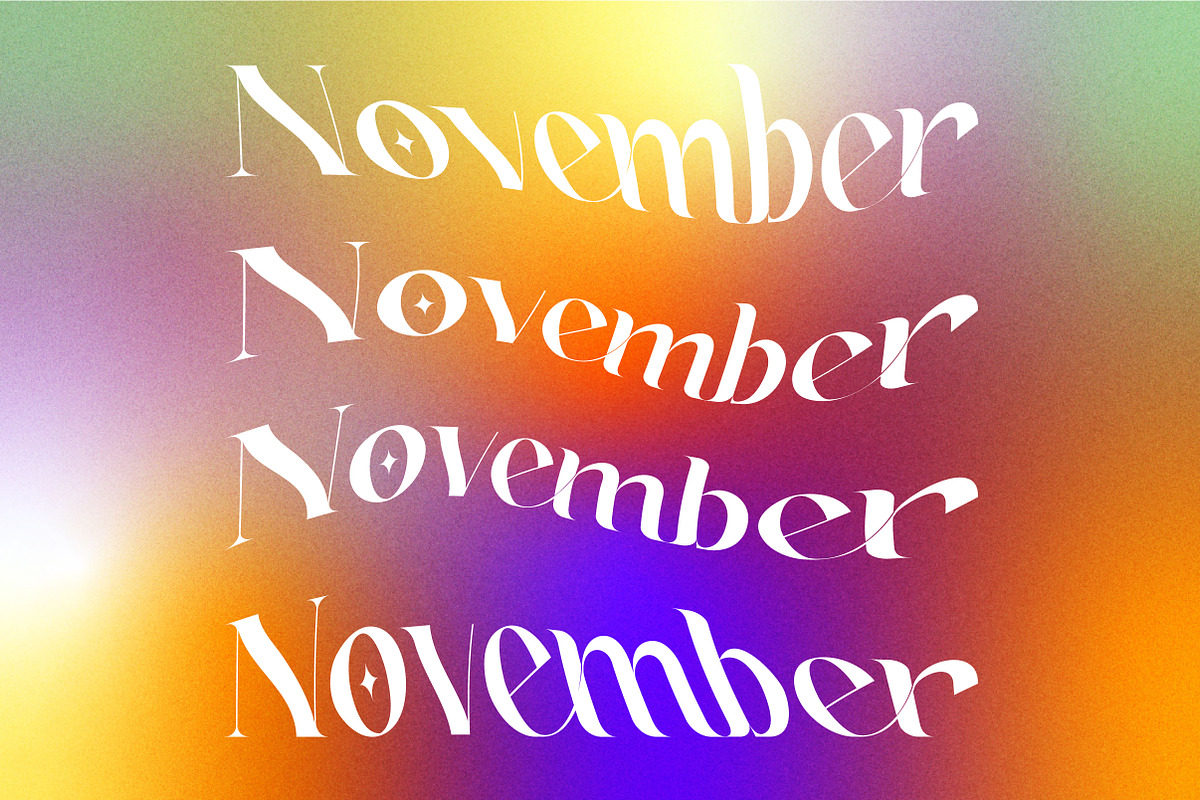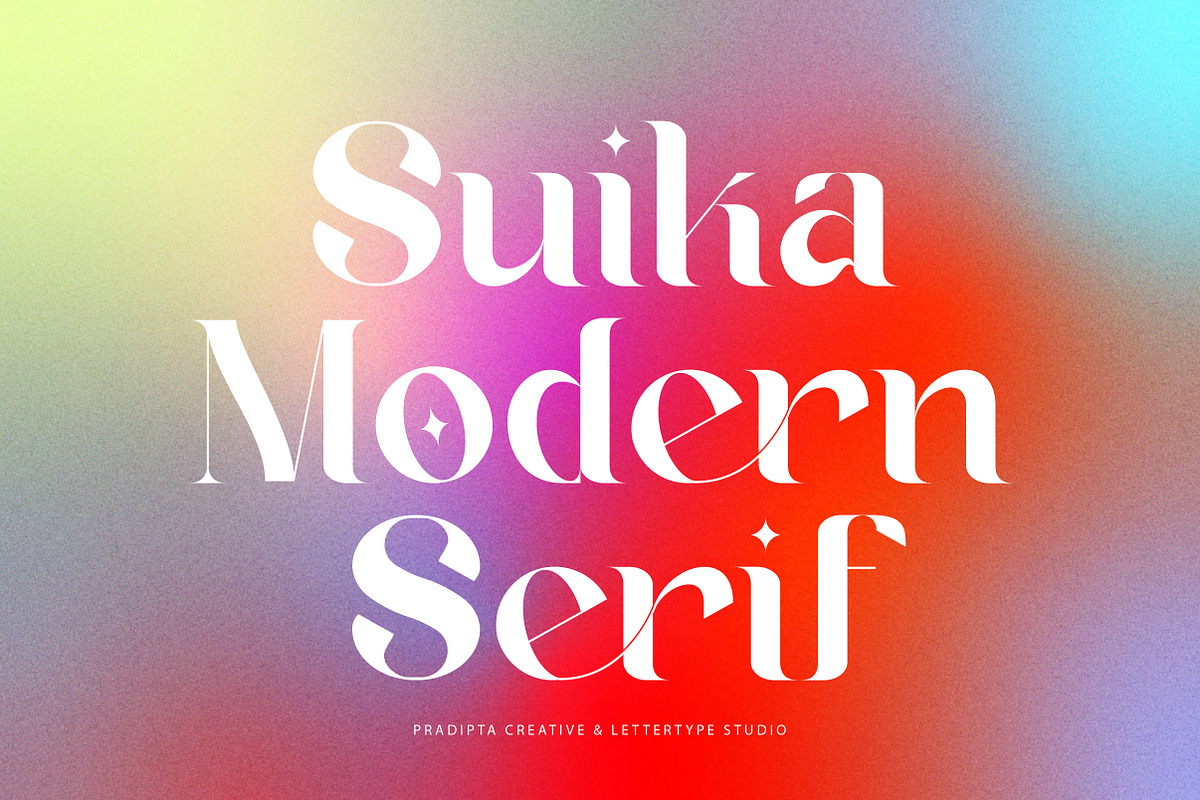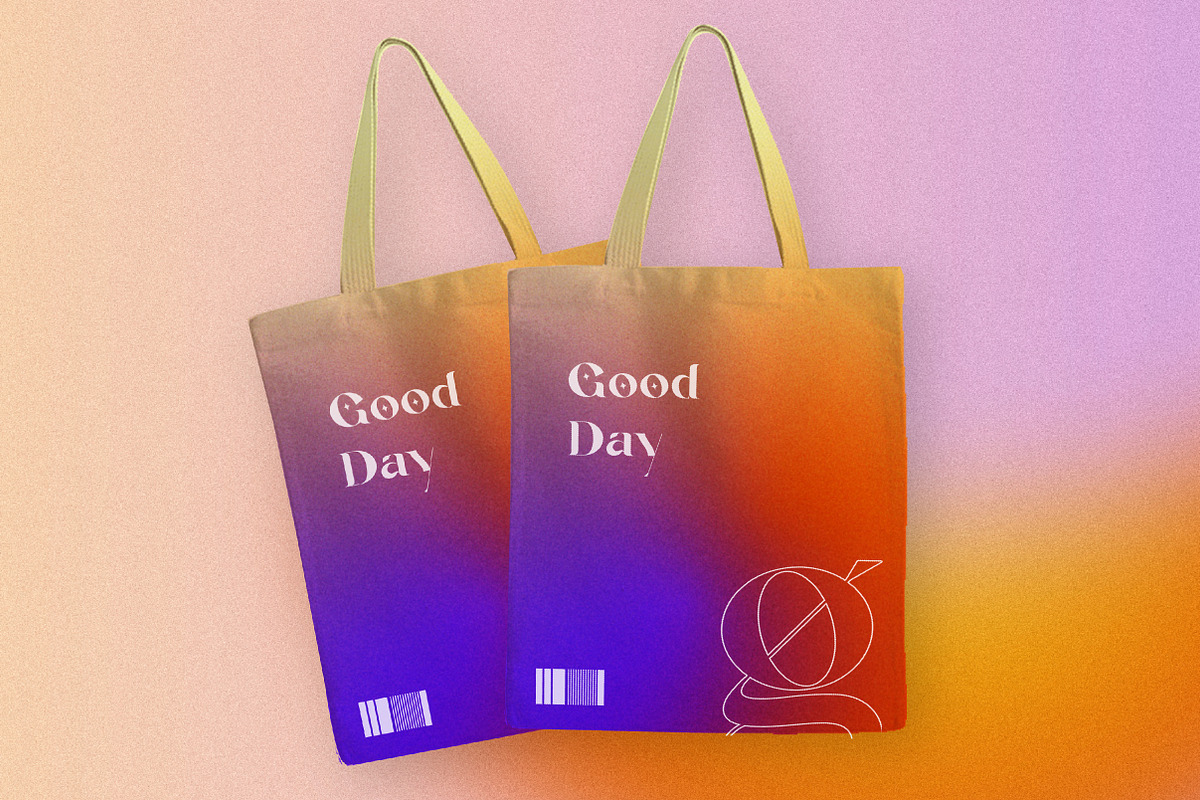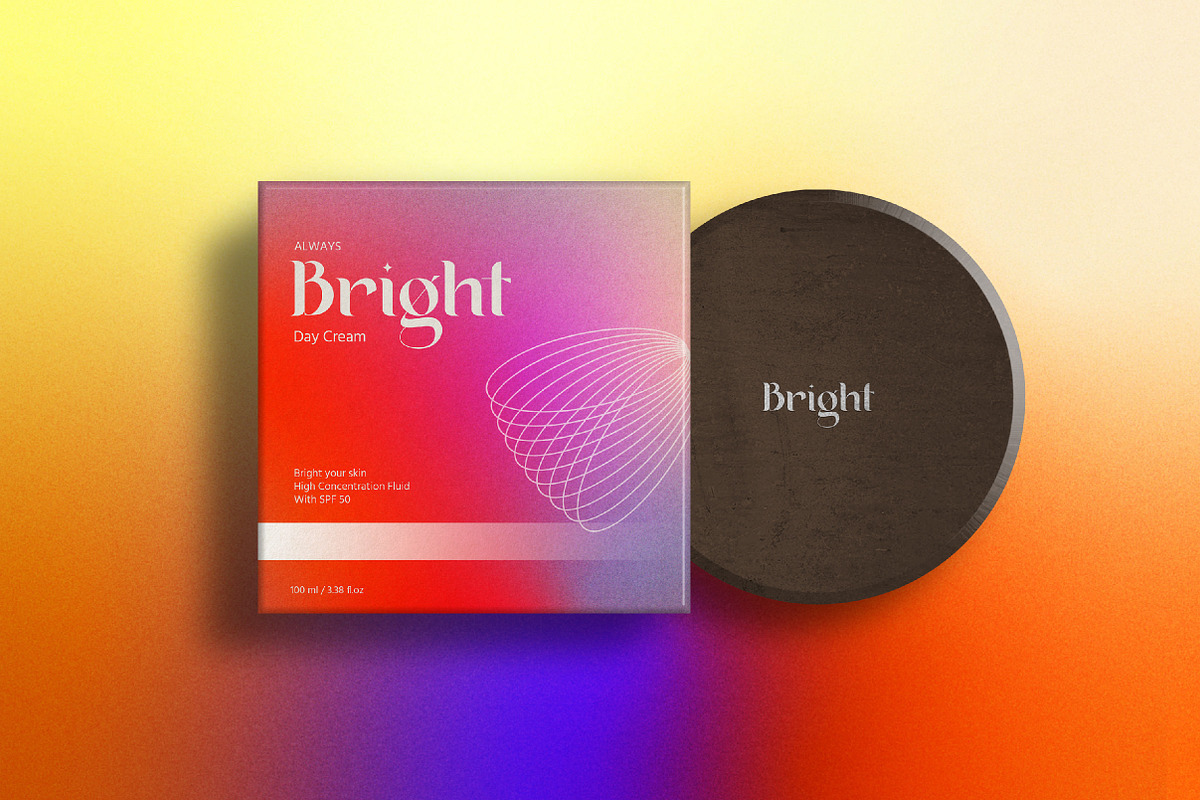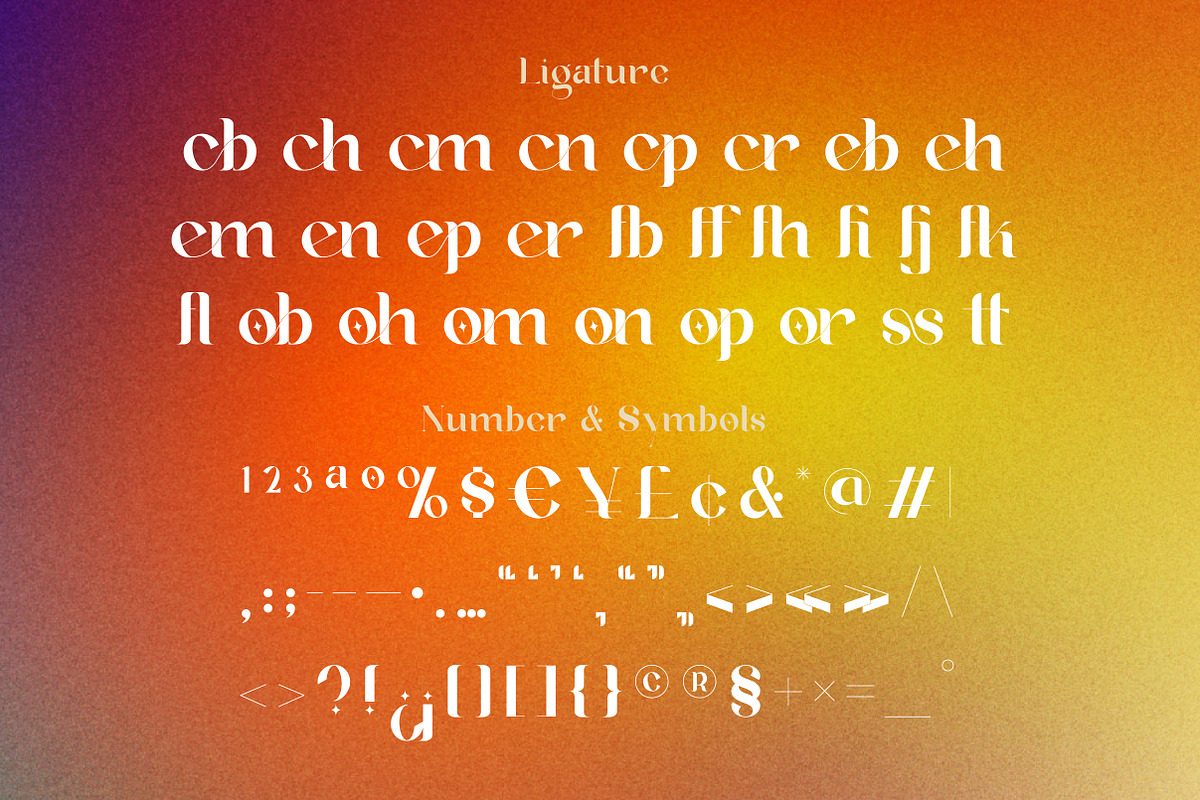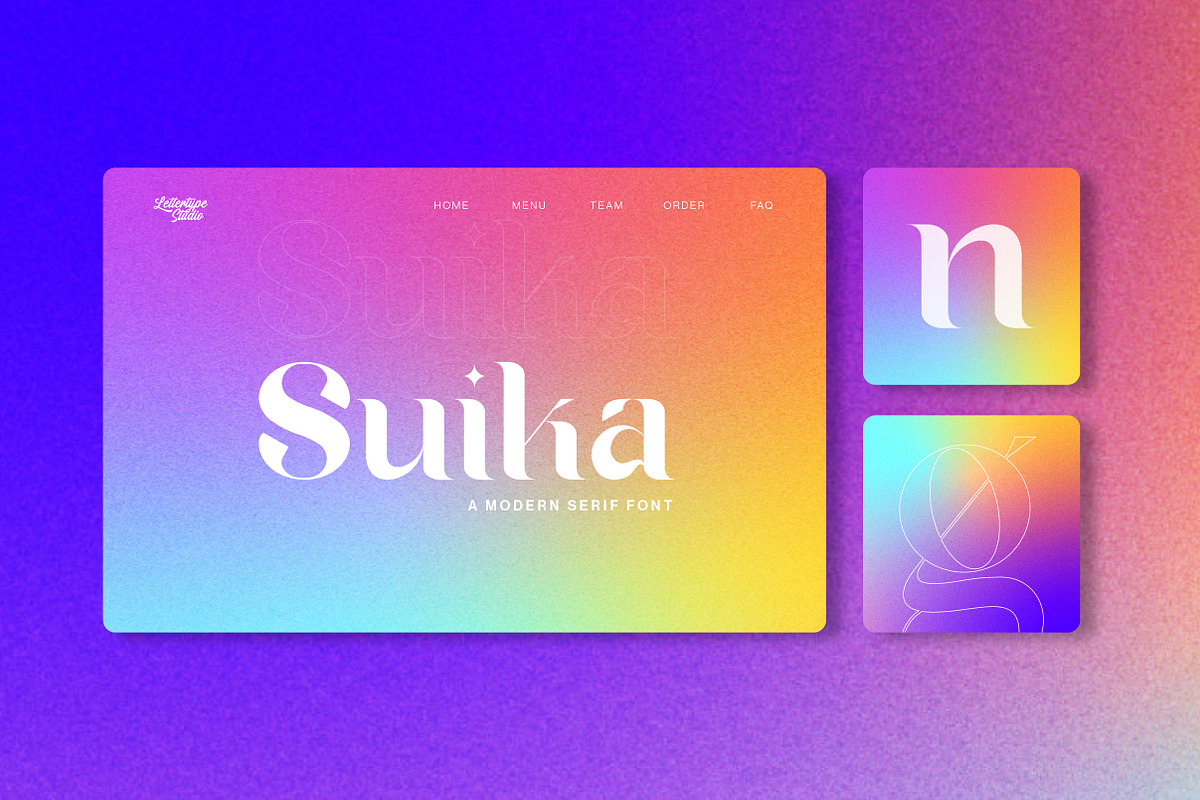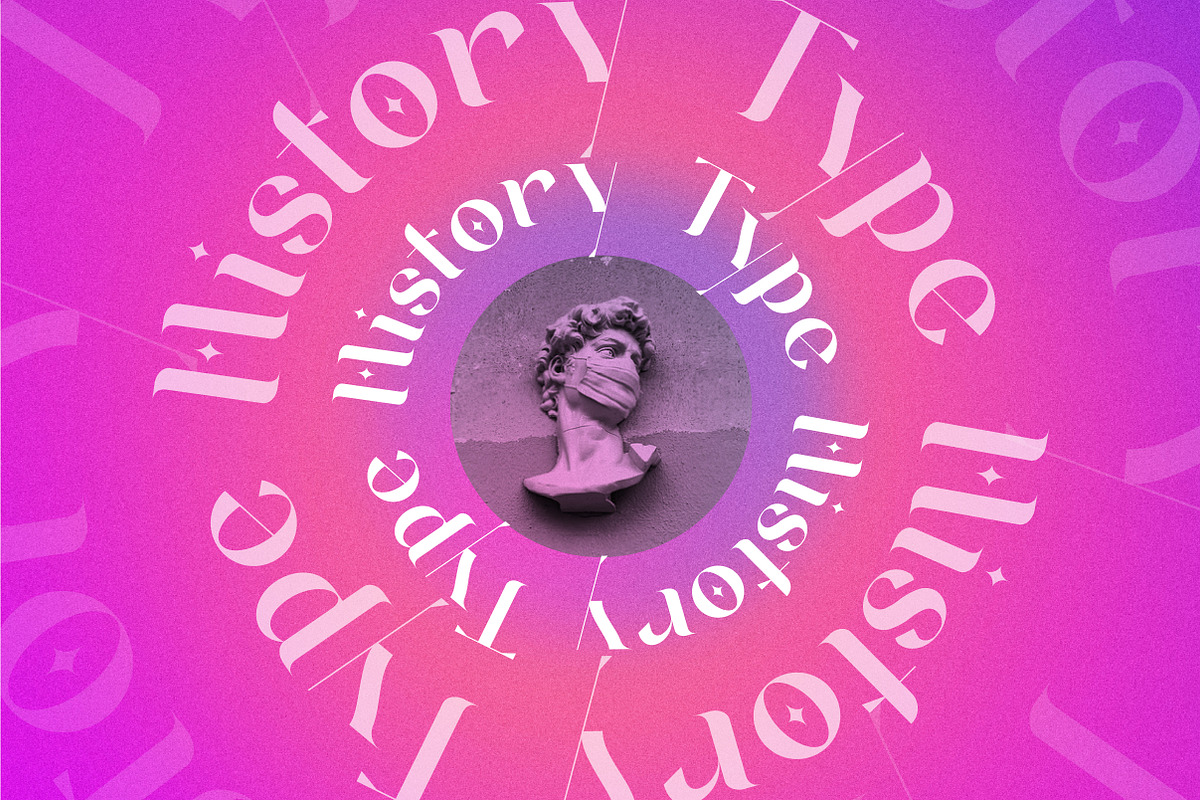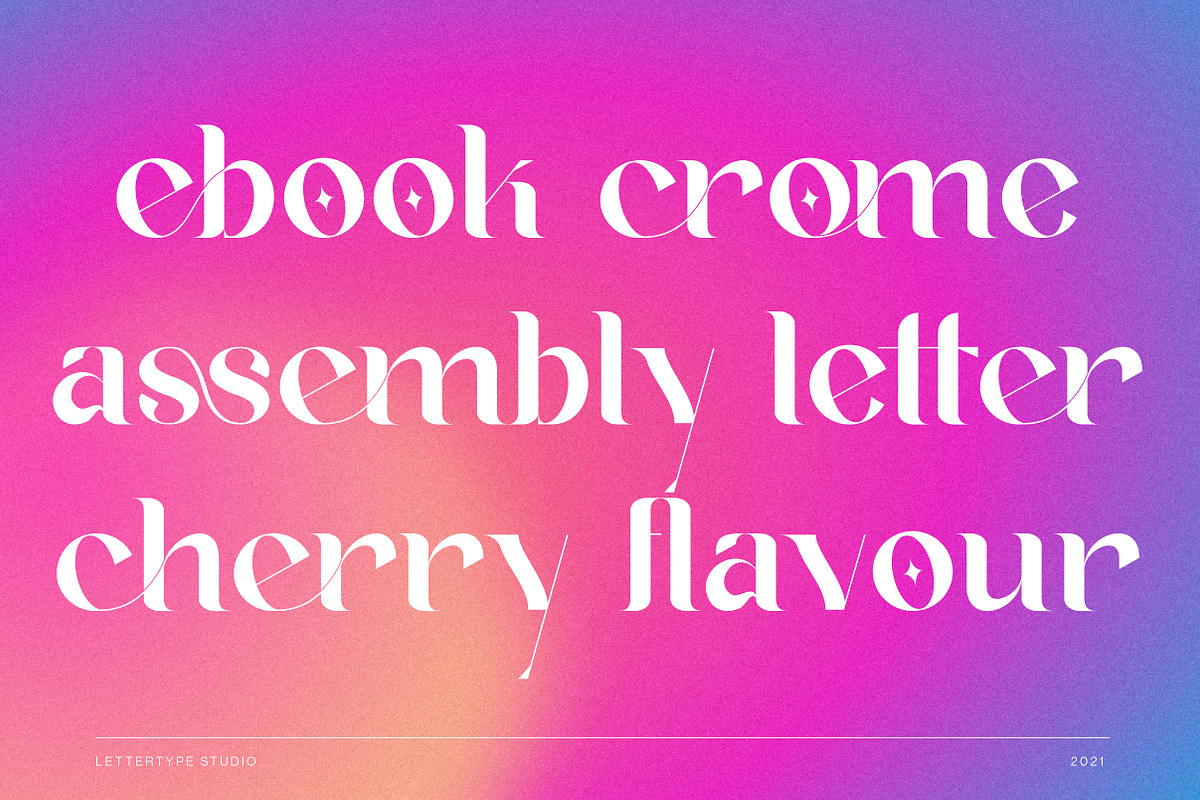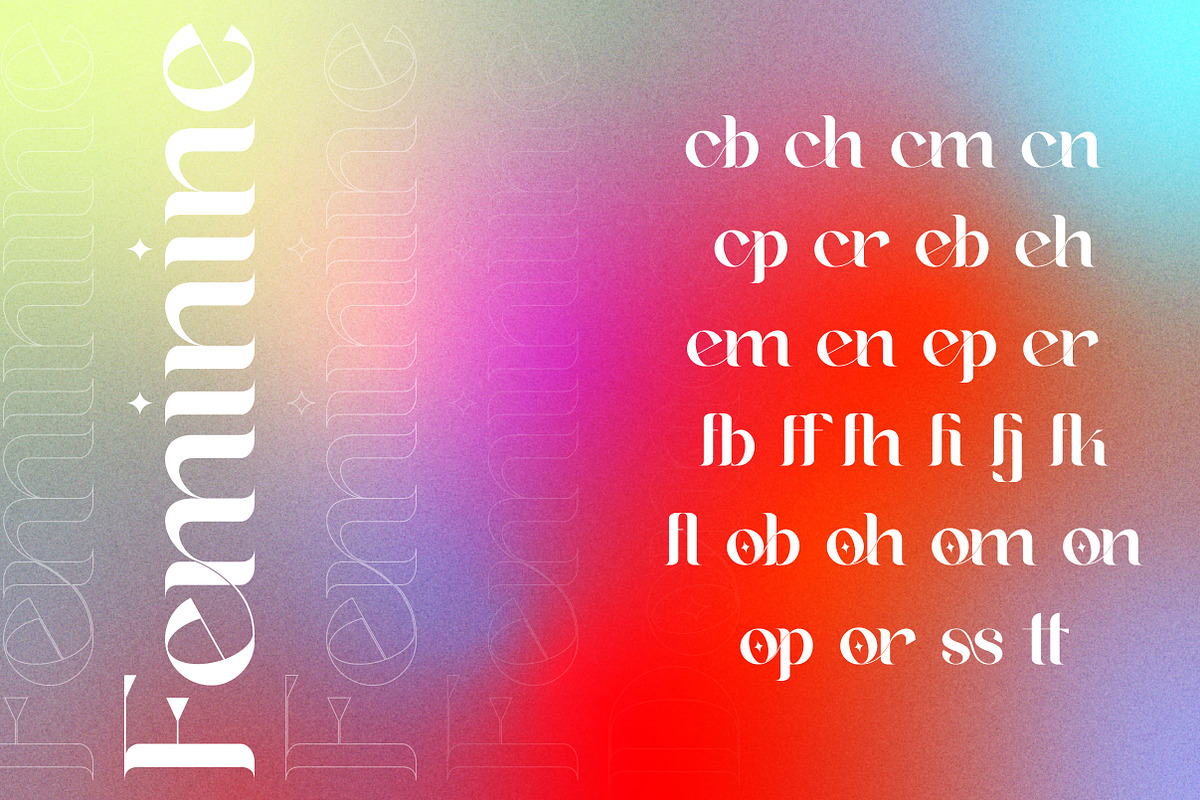
Suika a Modern / Vintage Font
Suika Serif is a modern, classic or vintage font. This font will be perfect for logo design, branding, clothing, signage, posters, wedding invitations and so much more! My goal in creating this font was to create a mix of serif fonts with modern and classic styles, which will help your project to be more perfect and beautiful. Don't Miss Out!
- Lowercase and Uppercase
- Tons of Stylistic Ligature (27 stlyes)
- Fix (K) glyphs to make "Suika" more beautiful and perfect